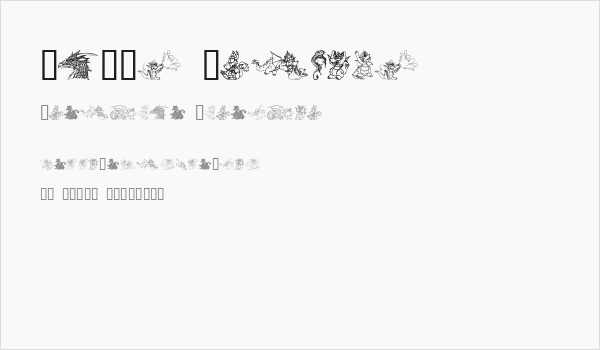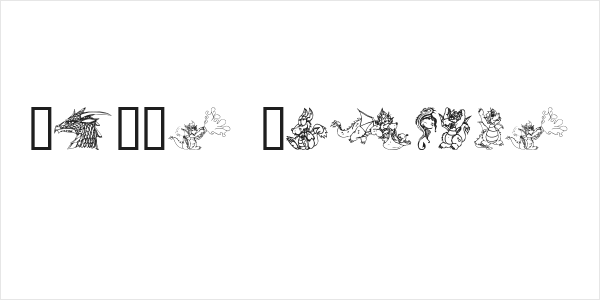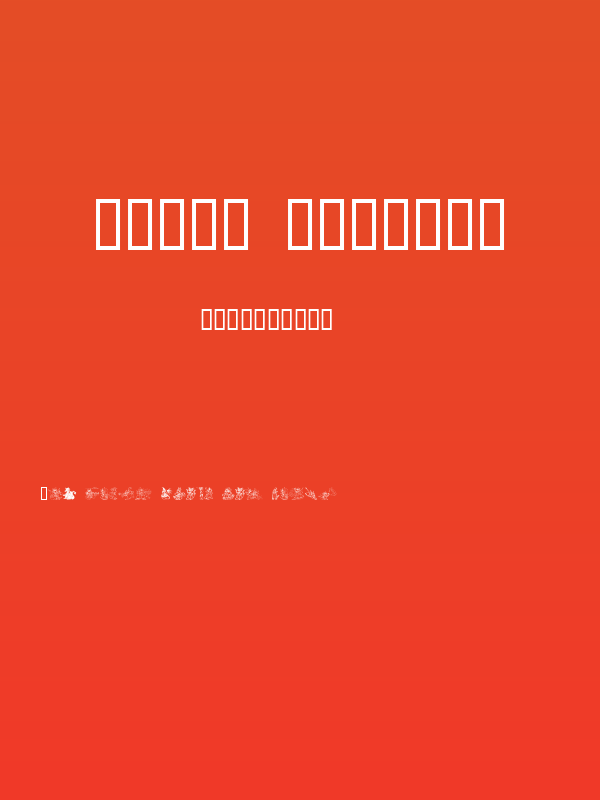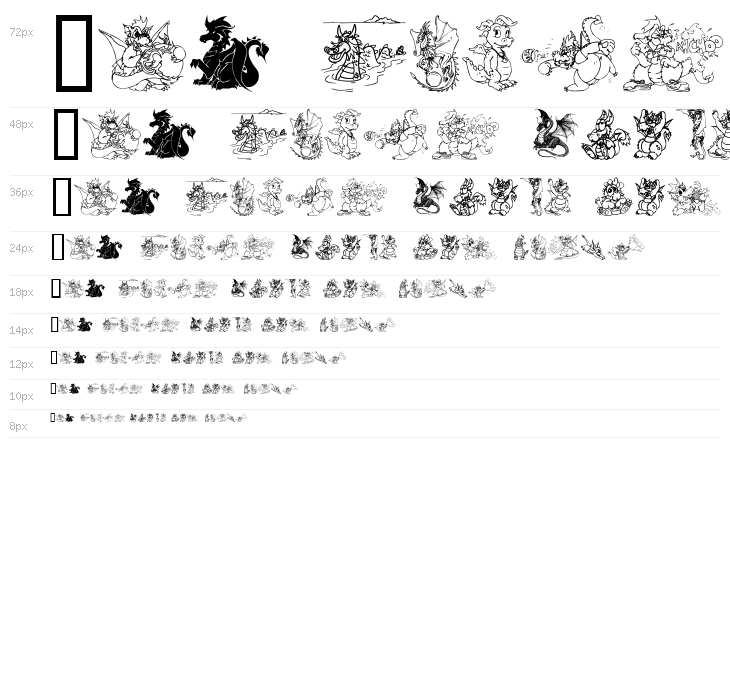
Ev's Dragons Font
Ev's Dragons Description
A decorative display font featuring whimsical, hand-drawn dragon illustrations in place of standard alphanumeric characters and symbols. Each glyph is a unique dragon cartoon, making the set highly illustrative and playful.
| Overall Style | Decorative, Whimsical, Playful |
| Use Case | Logos, Posters, Themed Headlines, Invitations |
| Proposed Projects | ChildrenΓ’β¬β’s books, fantasy-themed party invitations, game titles, posters, playful branding. |